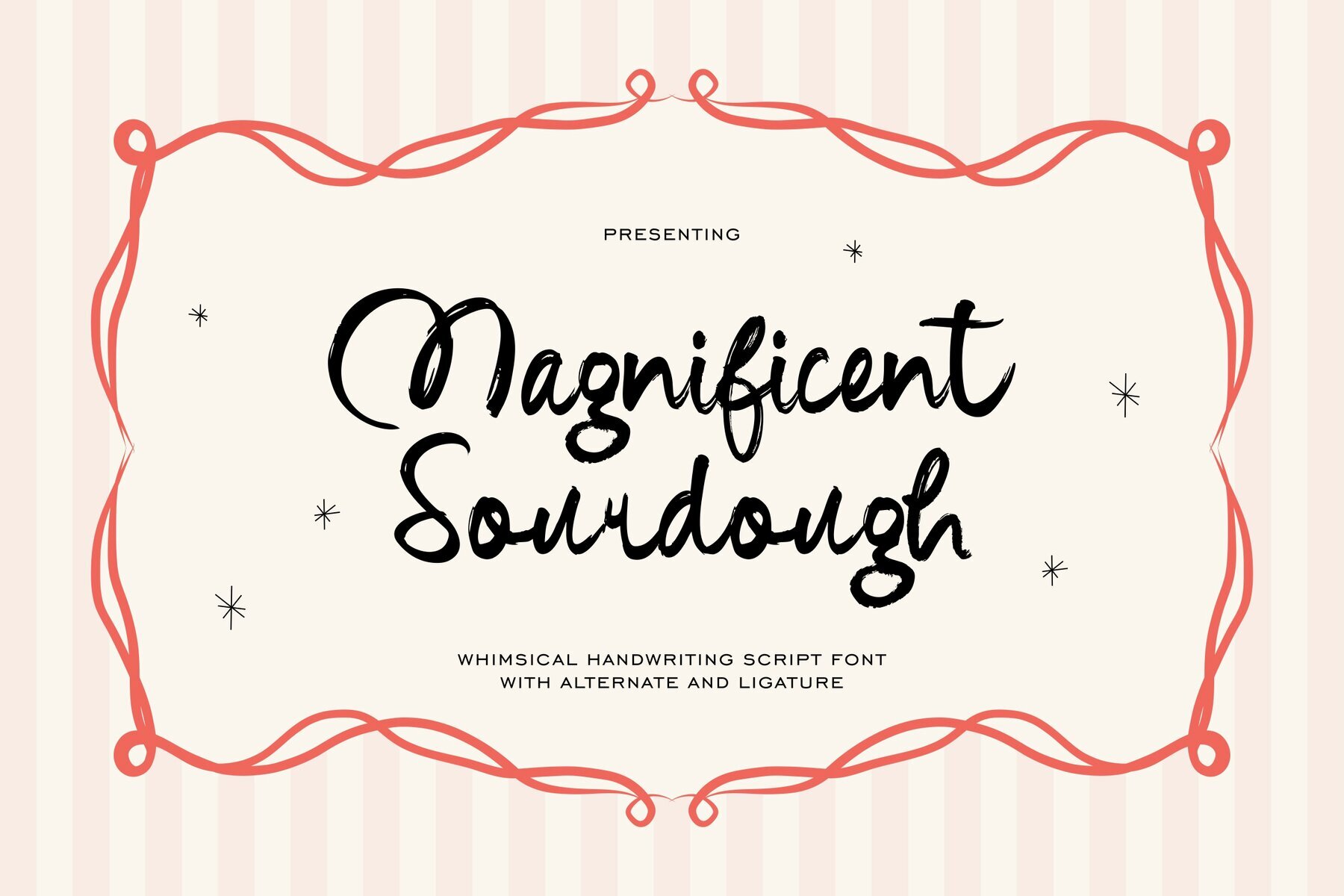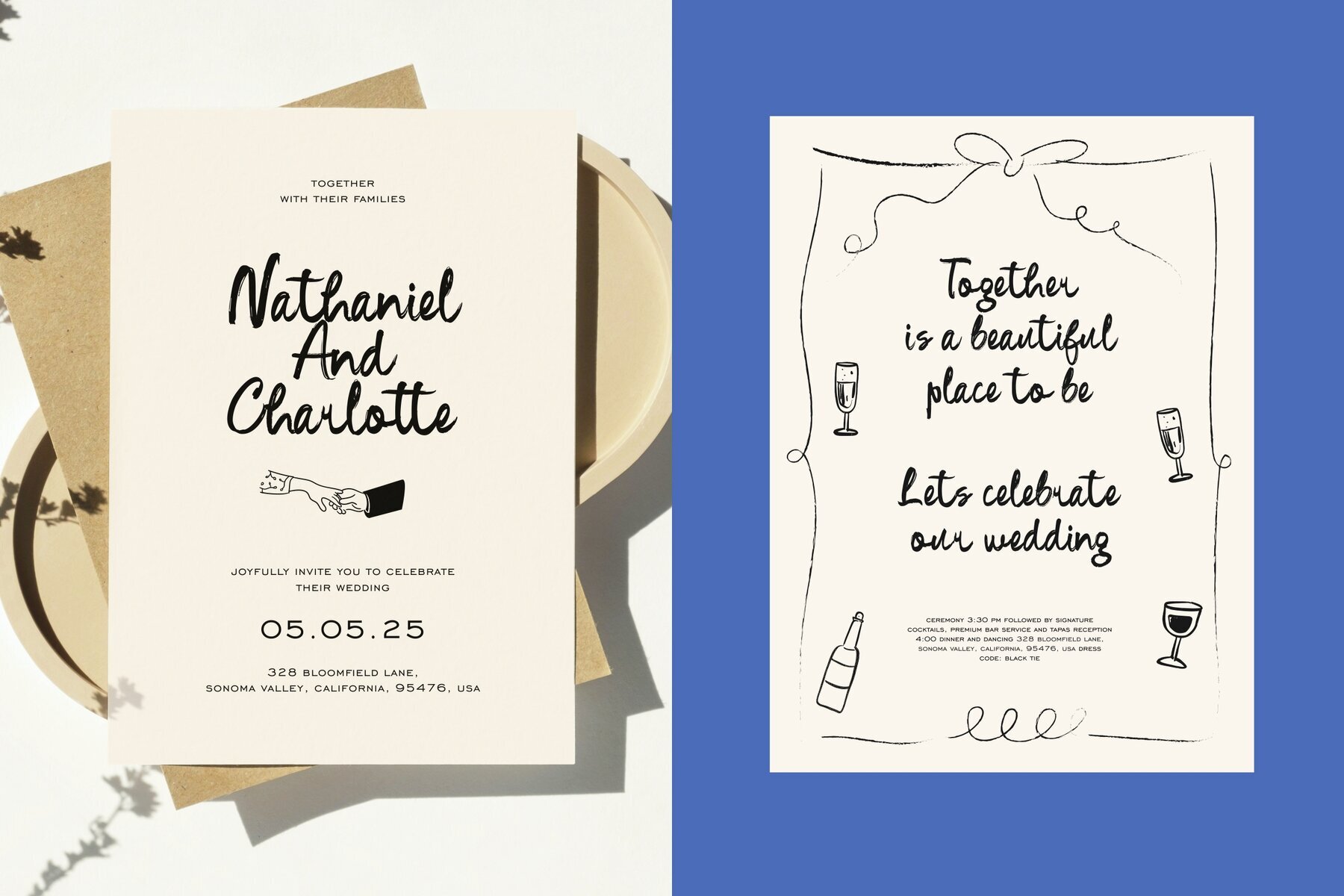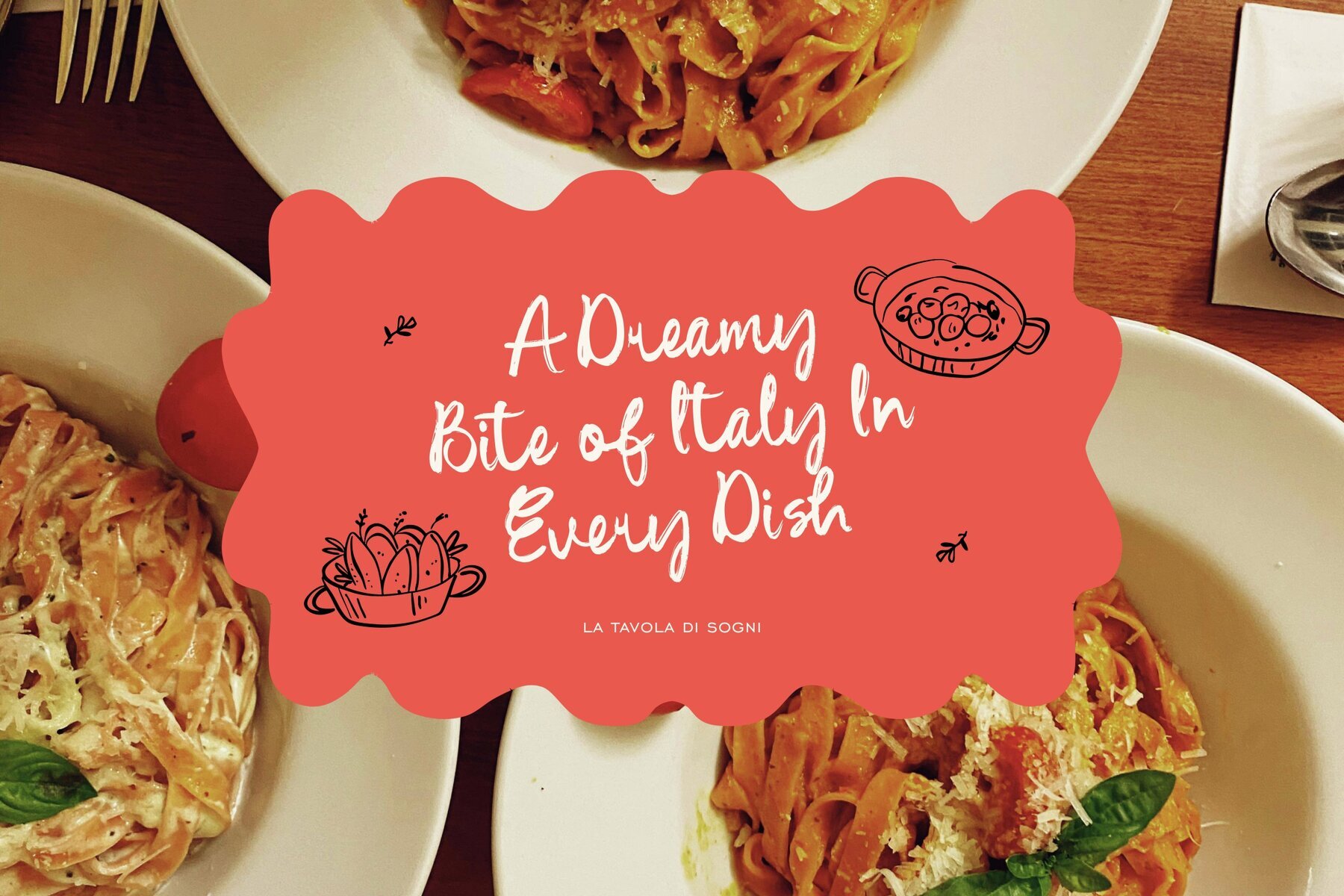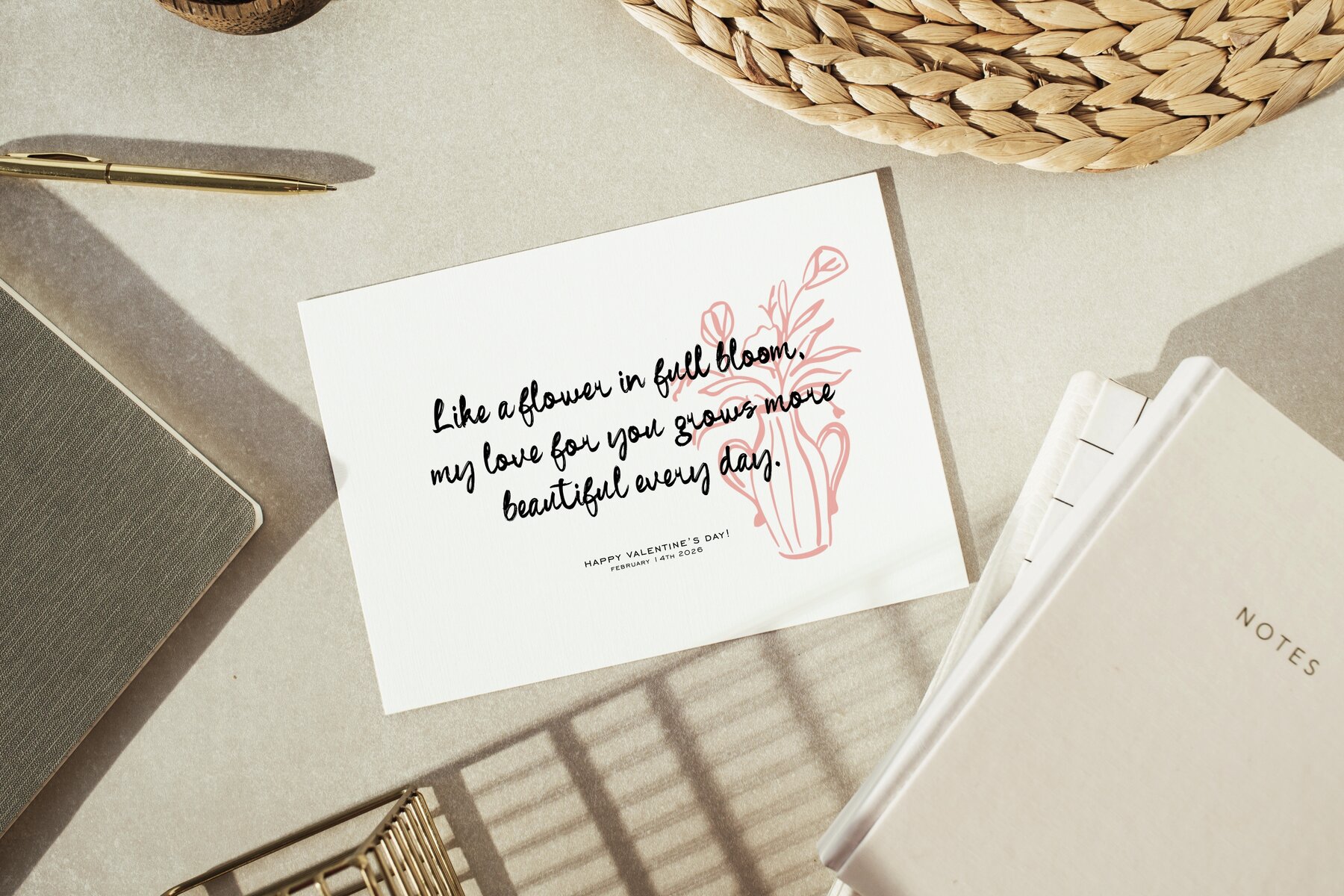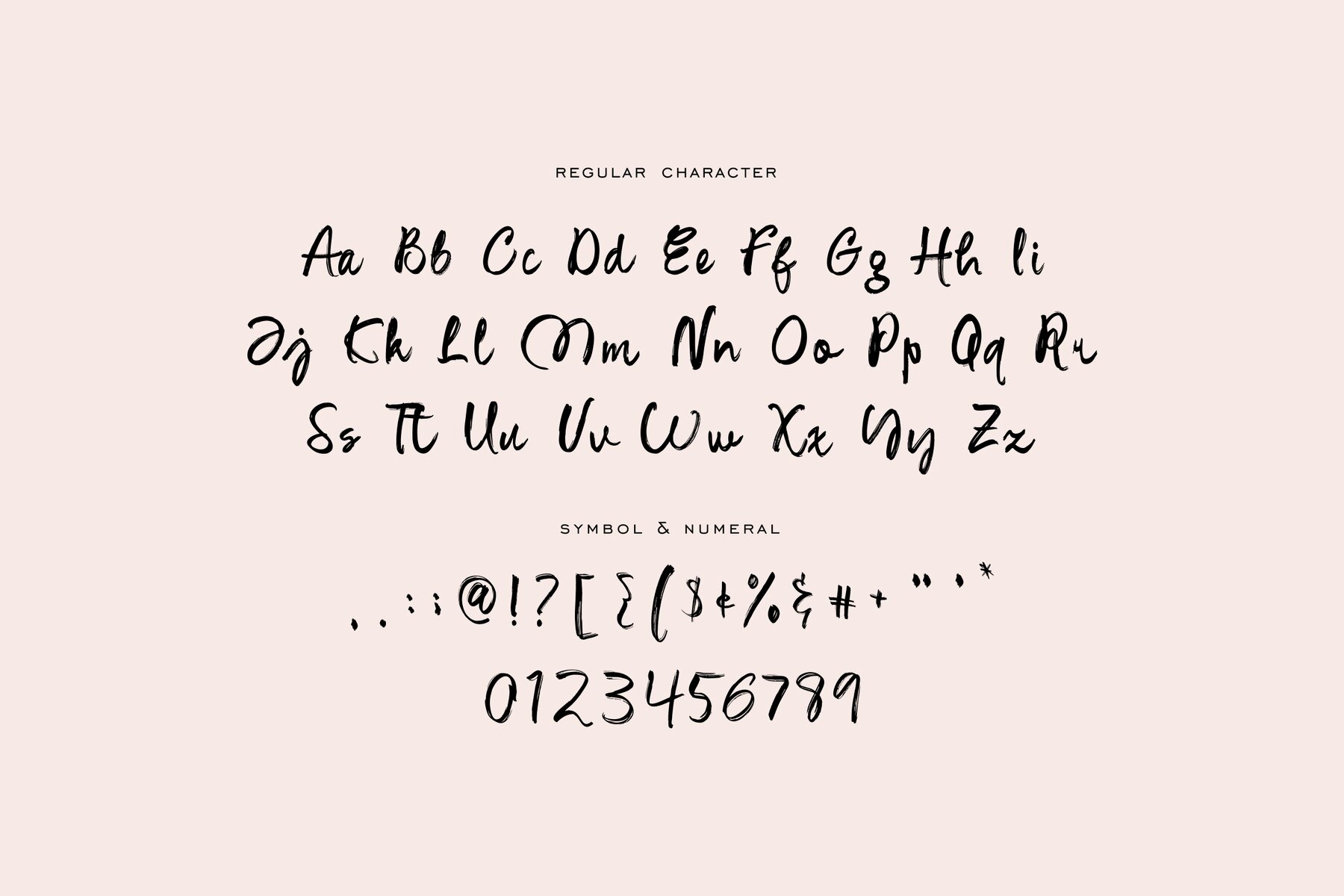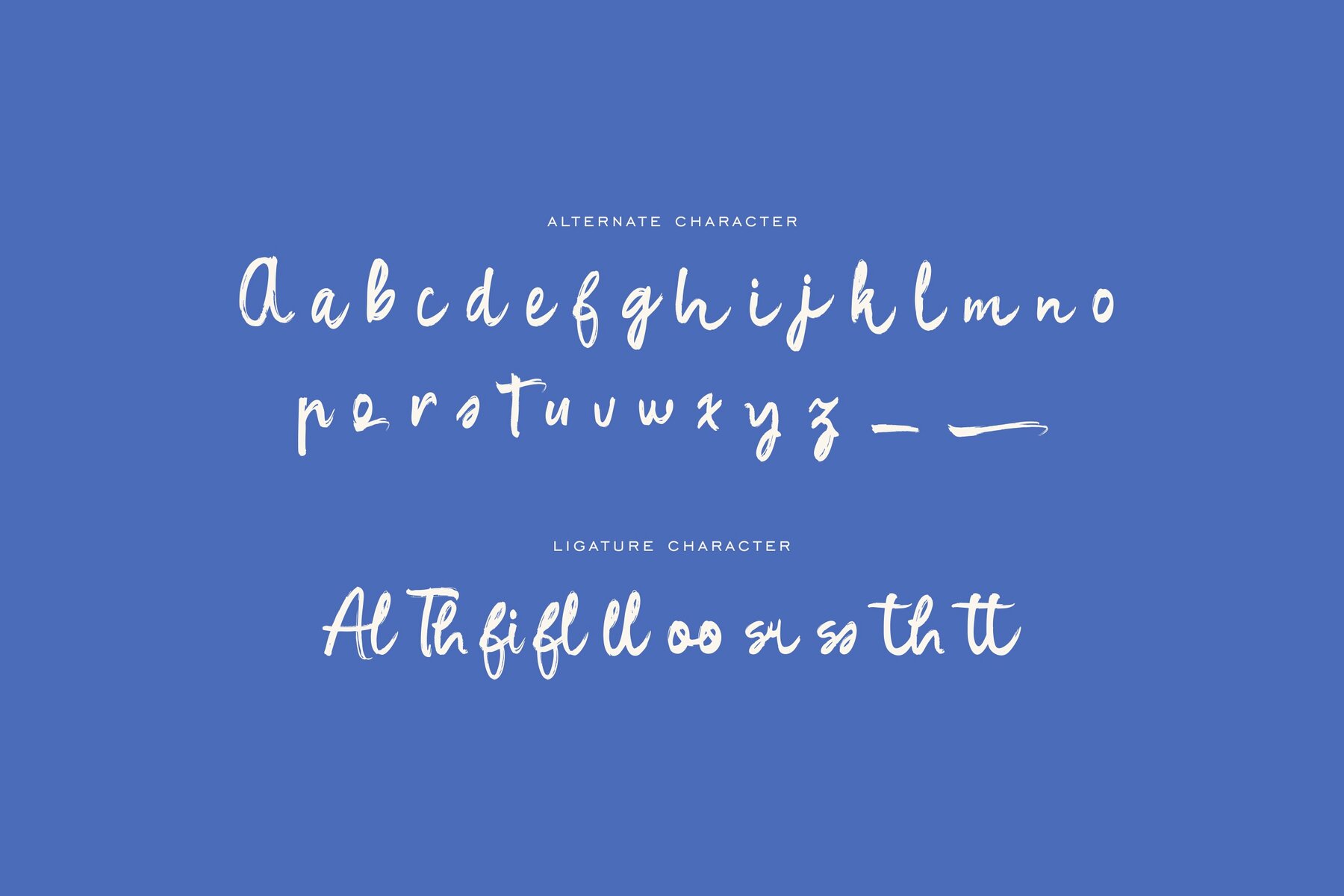
Magnificent Sourdough Font
Magnificent Sourdough Regular
Introducing Magnificent Sourdough, a charming and rustic script font that evokes a sense of warmth and familiarity. Designed to replicate the authentic, slightly imperfect appearance of natural handwriting with a brush pen, this typeface adds a personal touch to any project. With its lively and dynamic letterforms, Magnificent Sourdough offers a playful yet elegant aesthetic. Its strokes feature a subtle texture, providing an organic quality akin to handwriting directly on paper. Magnificent Sourdough excels in various applications, ideal for branding that emphasizes approachability and warmth, heartfelt wedding invitations, and engaging social media content. It's equally suited for cozy café menus, greeting cards for special occasions like Valentine's Day and Mother's Day, and seasonal spring and summer projects.Magnificent: Whimsical Script Typeface